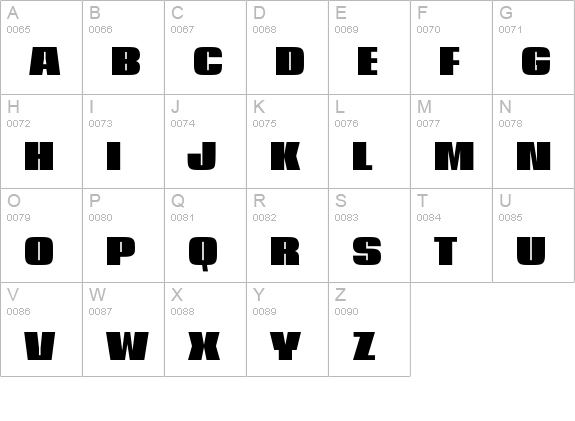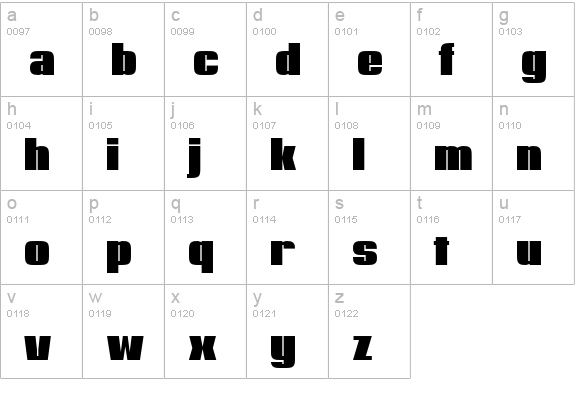
HeavyHeavyFat Font Details
Introducing HeavyHeavyFat, a powerful and commanding font that demands attention and makes a bold statement. With its thick and weighty lines, this font exudes strength and confidence, making it perfect for headlines, logos, and graphic designs that need to make a lasting impression. The HeavyHeavyFat font features a unique blend of modern and classic aesthetics, with an emphasis on boldness and impact. Its strong and sturdy letterforms add a touch of gravitas to any project, while still remaining versatile and adaptable to different styles and themes. What sets HeavyHeavyFat apart is not only its striking appearance, but also its accessibility. This exceptional font is available for free download exclusively at FontsMarket.com, ensuring that designers and creatives of all backgrounds can access and utilize this powerful typeface to elevate their work. Whether you're working on a magazine spread, a product packaging design, or a branding project, HeavyHeavyFat will effortlessly command attention and leave a lasting impression. Its unique and distinctive style will help your designs stand out from the crowd, making a bold statement and capturing the essence of your message. So why settle for ordinary when you can embrace the extraordinary? Download HeavyHeavyFat for free at FontsMarket.com and unleash the power of this impressive font to take your designs to new heights. It's time to make a statement that won't be forgotten.